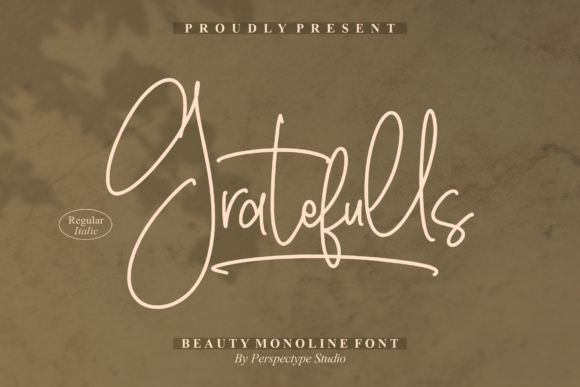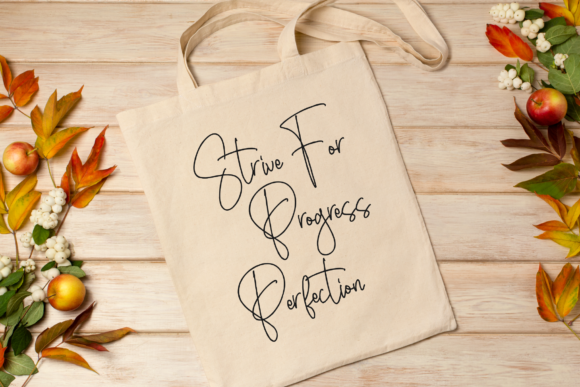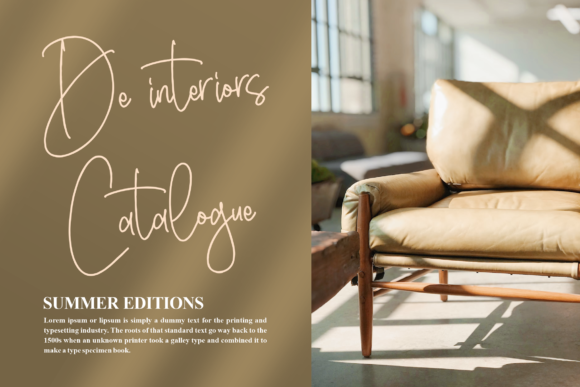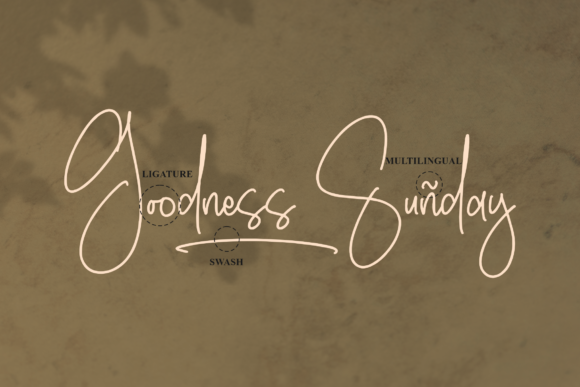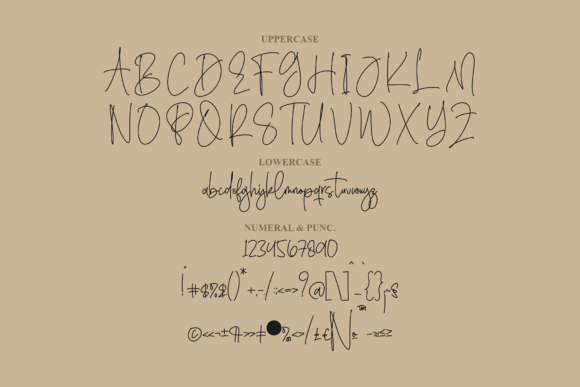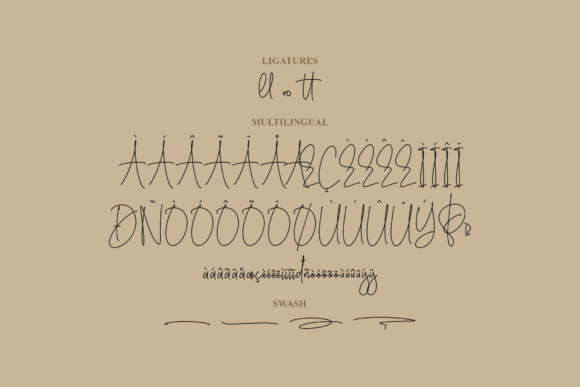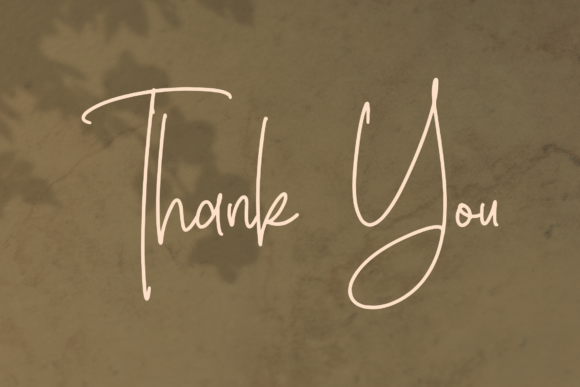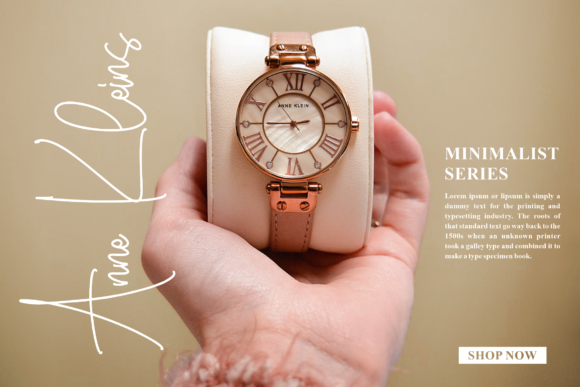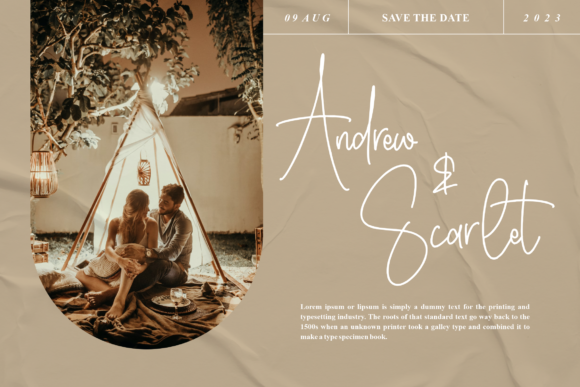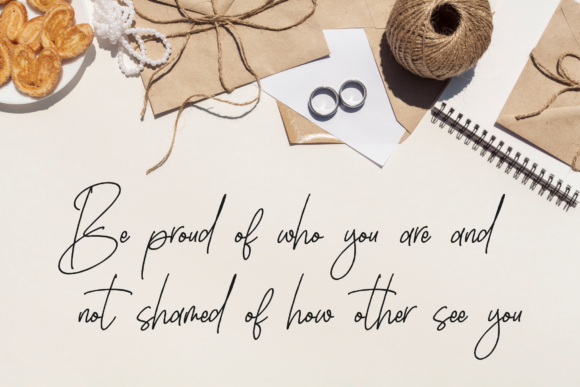
Gratefulls Font
About Gratefulls Font
Introducing Gratefulls, a beautiful monoline font designed to bring a touch of elegance and sophistication to a variety of creative projects. This versatile font is well-suited for diverse applications, including logos, branding projects, homeware designs, product packaging, quotes, posters, shopping bags, t-shirts, book covers, name cards, invitations, greeting cards, labels, photography watermarks, special events, and any other project that requires a beautiful script taste.
Gratefulls stands out with its exquisite monoline design, offering a perfect blend of simplicity and grace. Whether you’re creating a logo, enhancing product packaging, or designing special event materials, Gratefulls adds a beautiful monoline script taste that elevates the visual appeal of your work.
For branding projects, Gratefulls becomes a defining element in establishing a unique and memorable brand identity. Its monoline script adds a touch of modernity and sophistication to logos and promotional materials, ensuring your brand communicates a sense of style and distinction.
In the realm of product design, Gratefulls lends a contemporary touch to packaging, mugs, and labels. The monoline font introduces a clean and versatile aesthetic, making your products stand out with a modern and appealing look that resonates with a wide audience.
On apparel like t-shirts, Gratefulls becomes a stylish choice for incorporating quotes or phrases. Its beautiful monoline script adds a trendy and minimalist dimension to fashion items, allowing you to create designs that align with current design trends.
Printed materials such as book covers, name cards, and invitations benefit from Gratefulls’ versatile script. Its beautiful and monoline design ensures a cohesive and visually appealing look across various design contexts, making it a reliable choice for creating captivating collateral.
Gratefulls is not just a font; it’s a design asset that brings a beautiful monoline script taste to all your creative projects. Whether for special events, photography watermarks, or any other lovely endeavor, Gratefulls adds a touch of timeless beauty. Embrace the simplicity and elegance of Gratefulls as you infuse your designs with the beauty of this monoline script font.